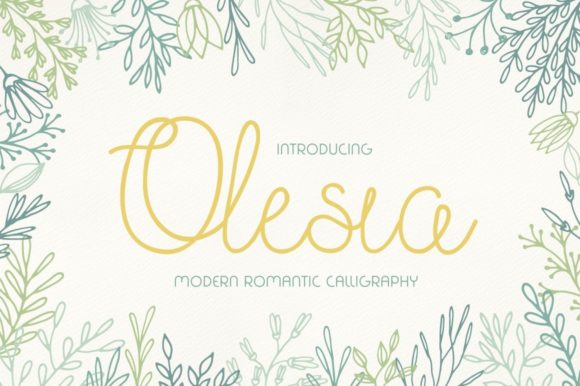
Olesia Handwritten Font
Finding the right design elements can be challenging, but Olesia Handwritten Font offers an exceptional collection that elevates your work instantly.